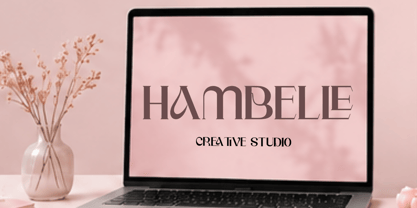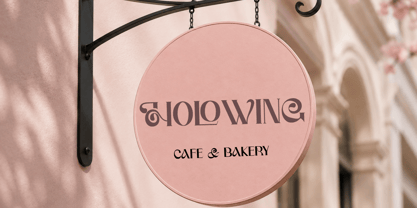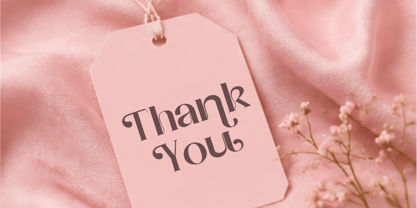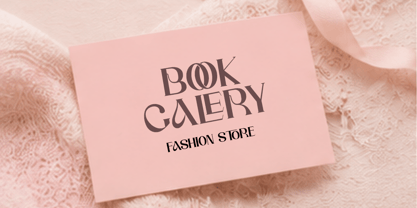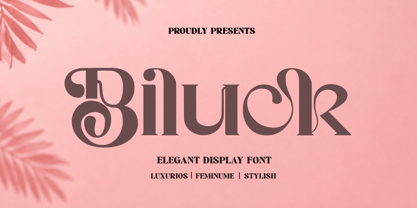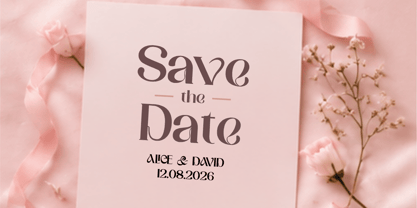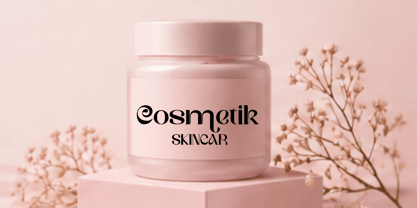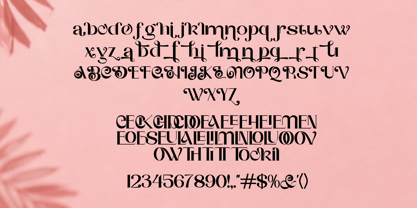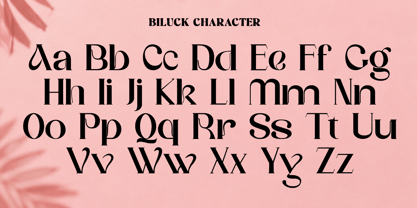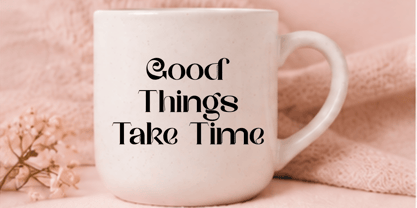
Biluck
by Letternesia studio
The Biluck Font Family was designed by Ta Siyo and published by Letternesia studio. Biluck contains 1 styles. More about this family
Biluck is a stylish display font designed to bring a bold, elegant, and distinctive character to your creative projects. With its unique letterforms and expressive details, Biluck is perfect for branding, logos, posters, fashion designs, packaging, invitations, social media graphics, and modern editorial layouts.
Biluck combines a strong visual presence with a touch of sophistication, making it an excellent choice for designs that need to stand out and leave a memorable impression.